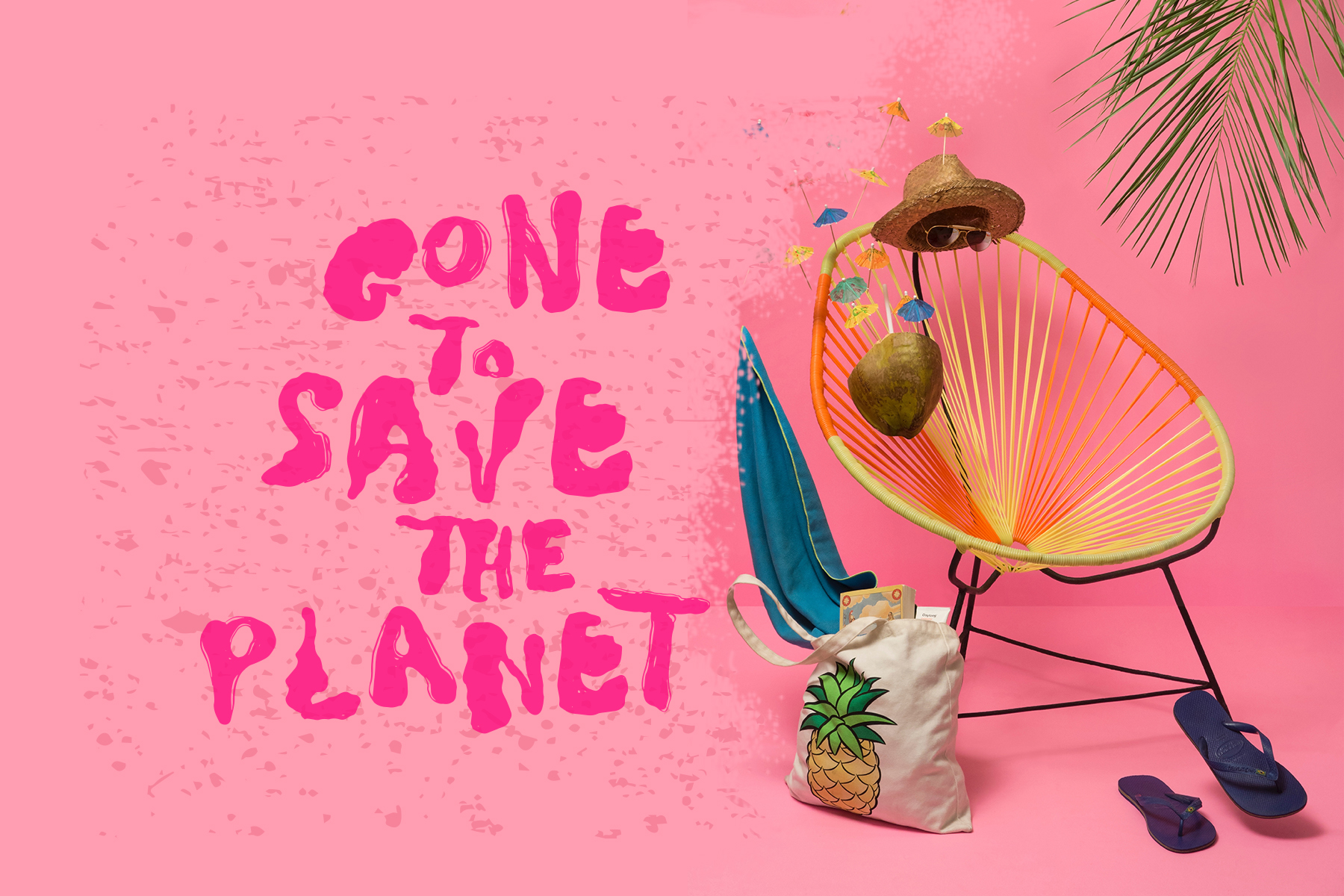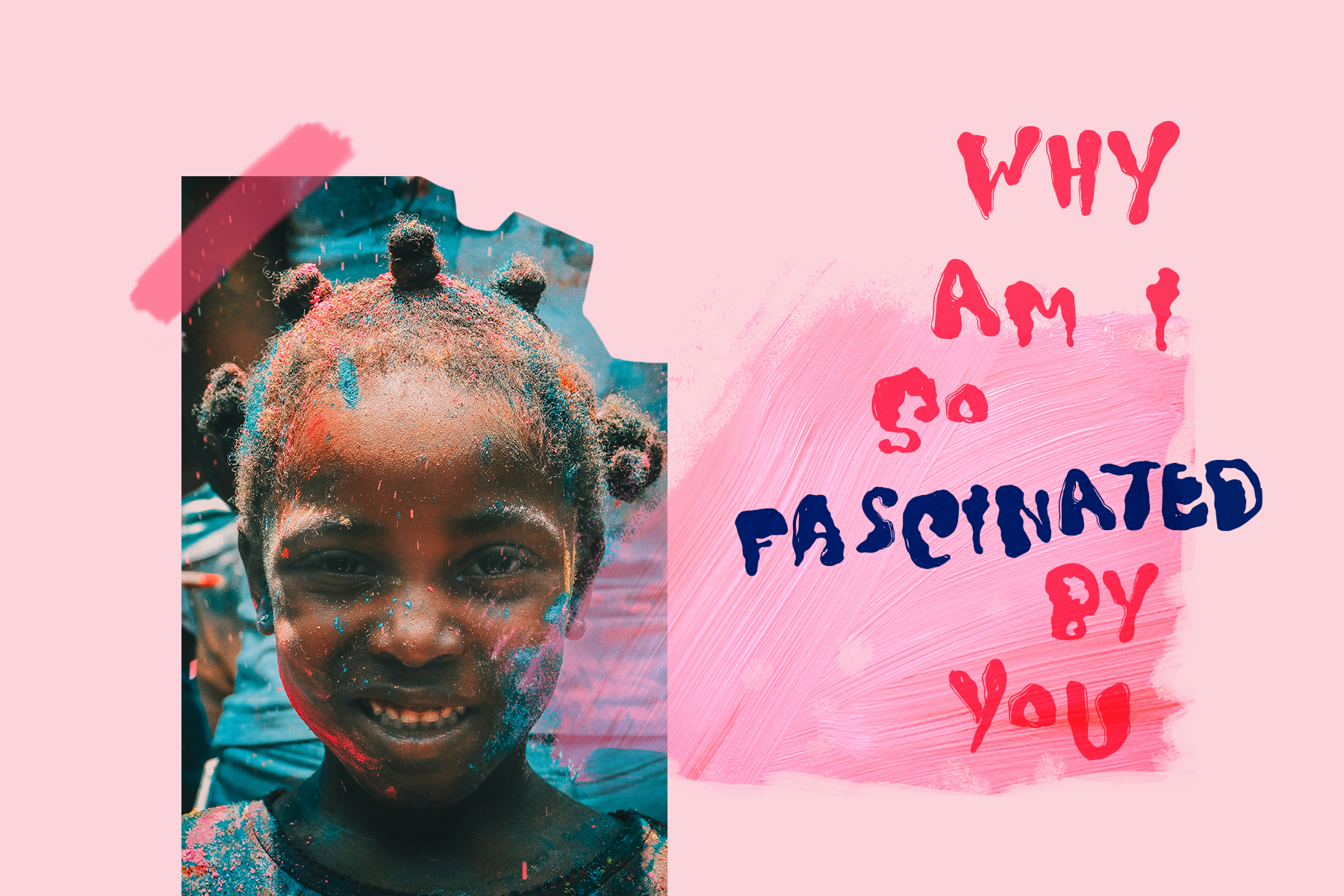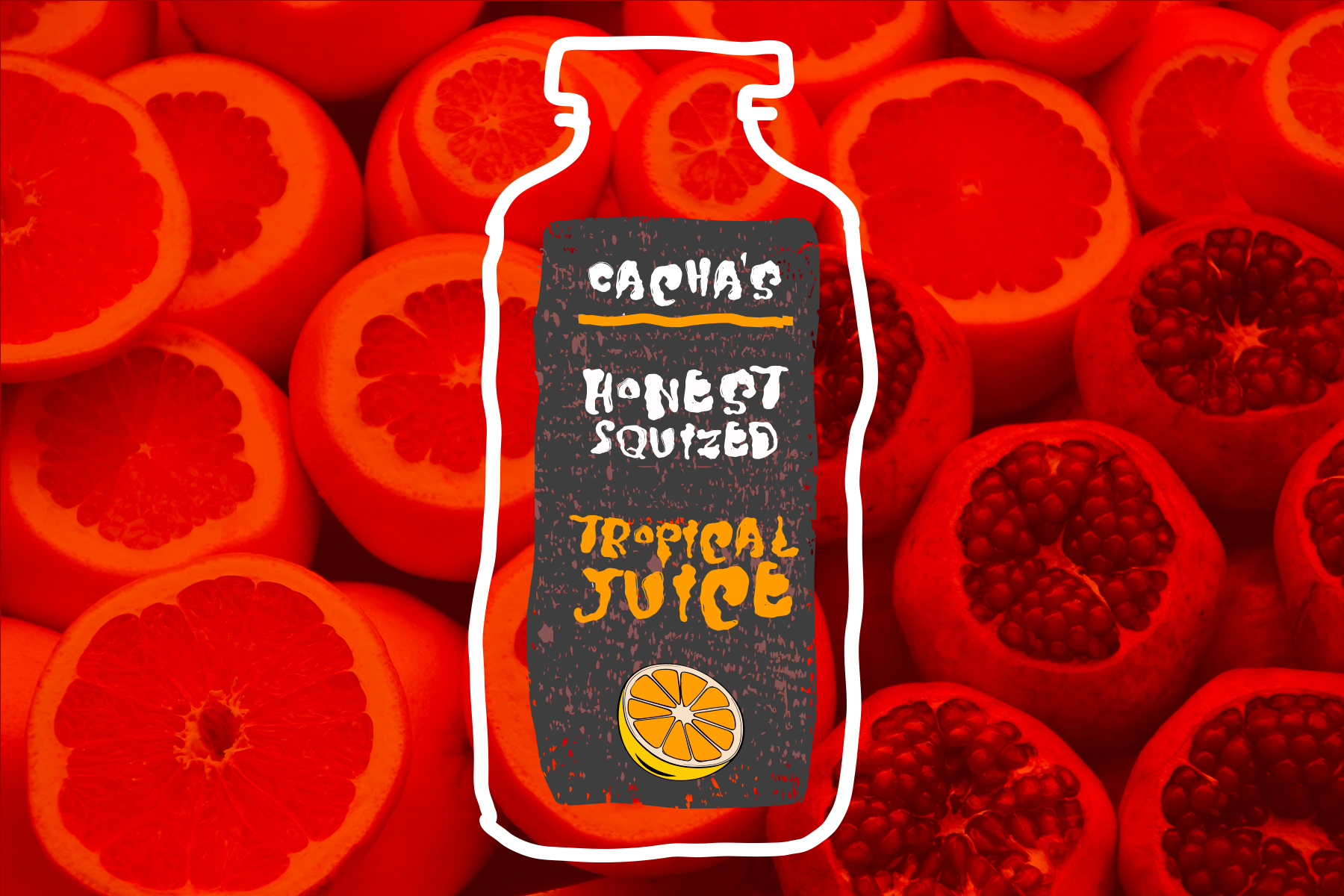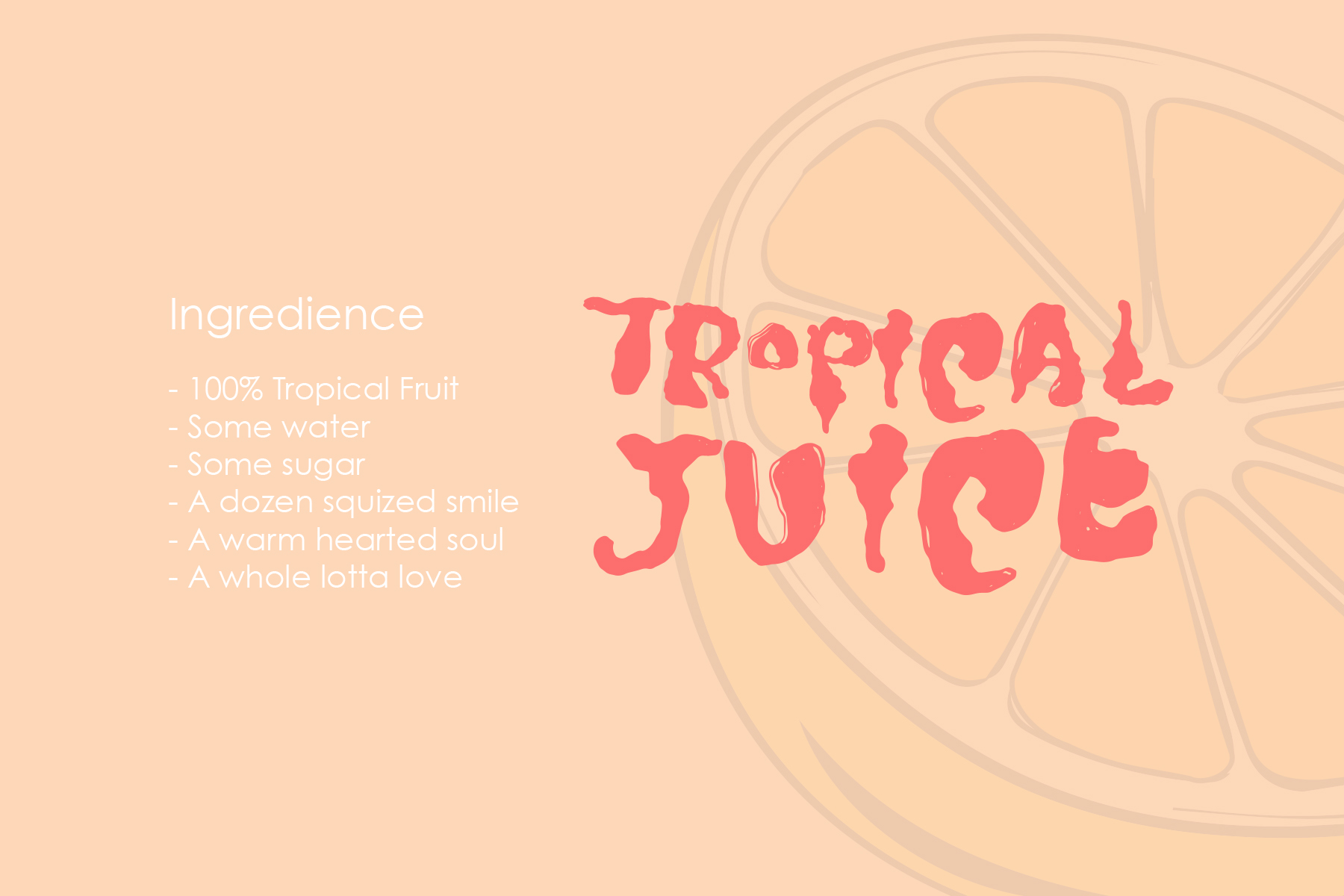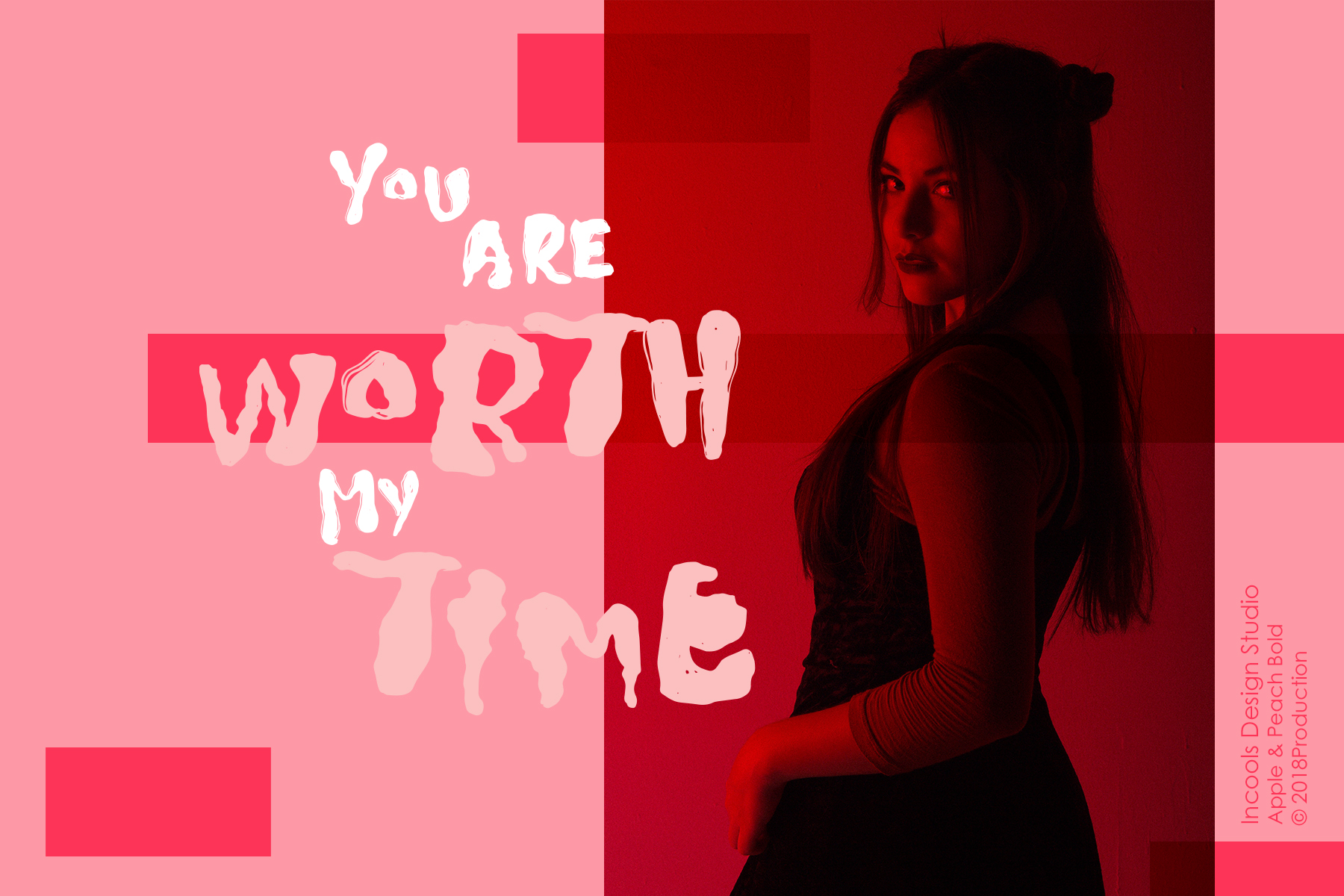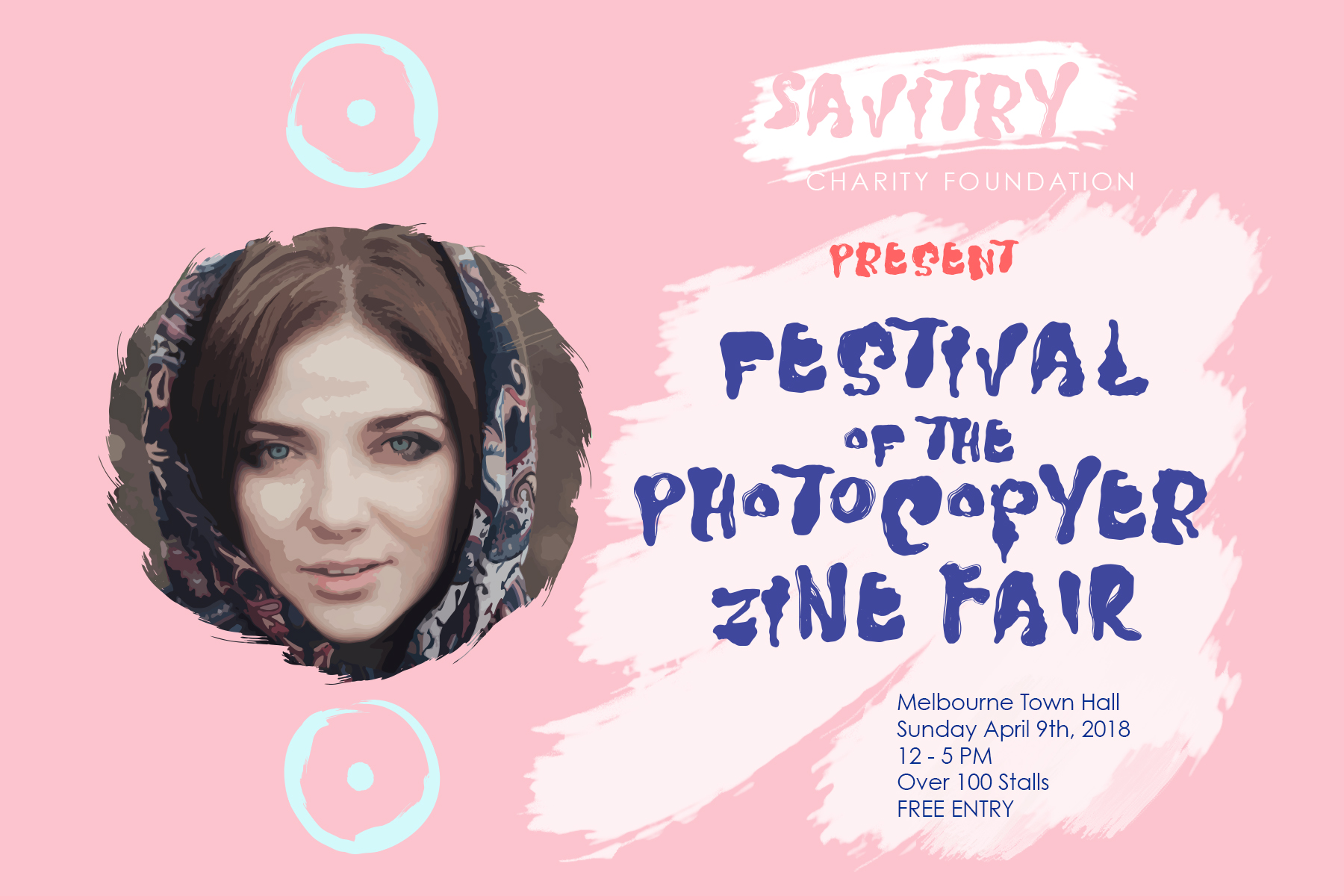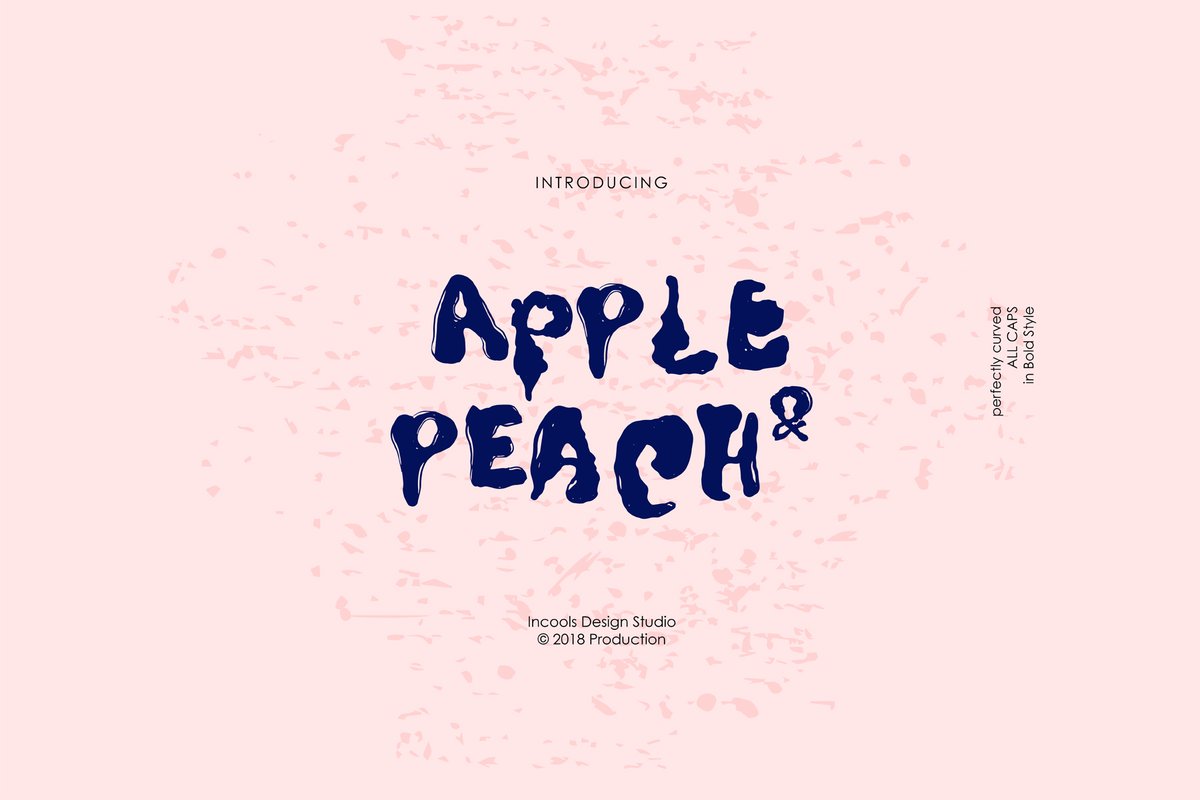
Discover the Sweet Taste of Creativity with Apple & Peach Font
Have you ever found yourself stuck in a design rut, scrolling through countless font options, and still can’t seem to find the perfect match? That was me, until I stumbled upon the delightful Apple & Peach Font. Its bold, playful style immediately caught my eye and sparked a creative moment that I couldn’t wait to explore further.
Apple & Peach Font is a unique display font designed to add a touch of whimsy and personality to any design project. Whether you’re working on a branding project, creating a social media campaign, or simply want to add some flair to your next blog post, this font is sure to bring a smile to your audience’s faces. As a designer, you’ll appreciate the versatility and creativity that Apple & Peach Font brings to the table.
Apple & Peach Font Key Features
- Unique Characteristics: This font features a unique blend of modern and vintage elements, with a distinctive ‘peach’ color that adds a touch of warmth and whimsy to any design.
Designer Review: Apple & Peach Font
I recently had the chance to work with the Apple & Peach Font, and here’s my honest review.
- Unique and playful design: The Apple & Peach Font has a distinctive look that’s perfect for adding a touch of whimsy to your designs.
- Legibility: The font is well-designed for body text, making it easy to read and understand.
- Customization options: The font comes with a range of styles and weights, giving you plenty of flexibility to tailor it to your needs.
- Limited usage for formal designs: The playful nature of the Apple & Peach Font makes it less suitable for formal or professional designs.
- Lack of robustness: I found that the font can look a bit fragile or inconsistent at larger font sizes.
Overall, I think the Apple & Peach Font is a great addition to any designer’s toolkit, particularly for projects that require a touch of fun and personality. While it may not be suitable for all types of designs, its unique style and customization options make it a valuable resource for creative projects.
The Apple & Peach Font is ideal for:
- Summer-themed designs
- Children’s products and packaging
For optimal results, use the Apple & Peach Font in conjunction with bright, pastel colors and playful graphics.